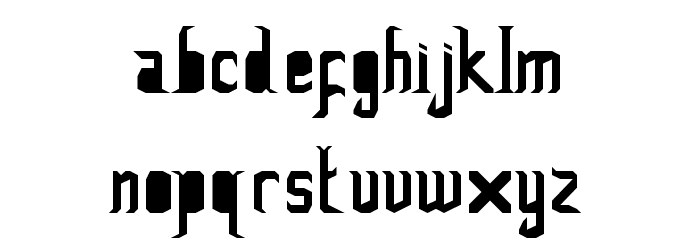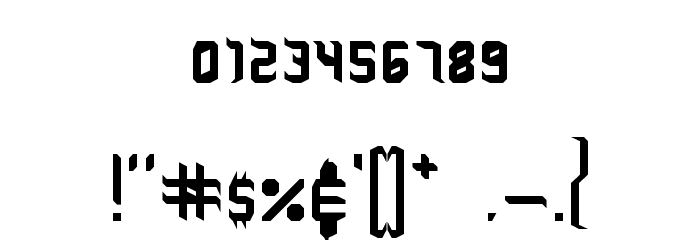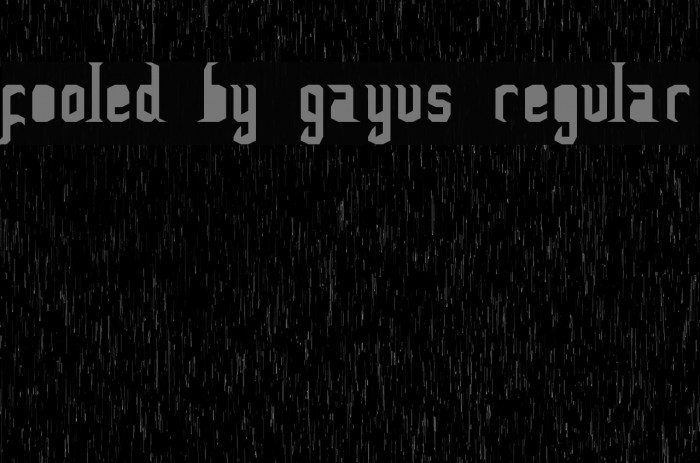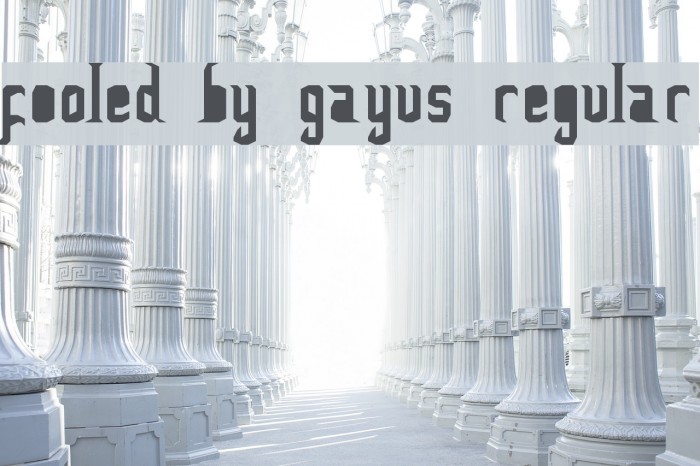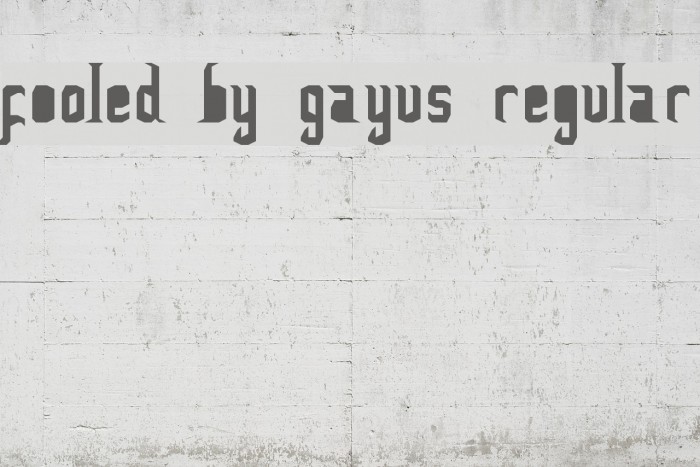
FoOleD bY GaYUs Regular Font
This font features a bold, angular design reminiscent of traditional Blackletter styles, yet with a modern twist. The characters are sharply defined, with strong vertical lines and pointed serifs that give it a striking appearance. The uppercase and lowercase letters maintain a consistent style, with the lowercase letters mirroring the uppercase in their angularity and boldness. The numerals and special characters follow the same design principles, ensuring a cohesive look across all text. The font's unique style makes it stand out, suitable for projects that require a dramatic and impactful visual presence.
A bold, angular Blackletter-inspired font with a modern edge.
- Proposed Projects: Ideal for branding, posters, album covers, and any project needing a dramatic, eye-catching typeface.
- Category: Blackletter